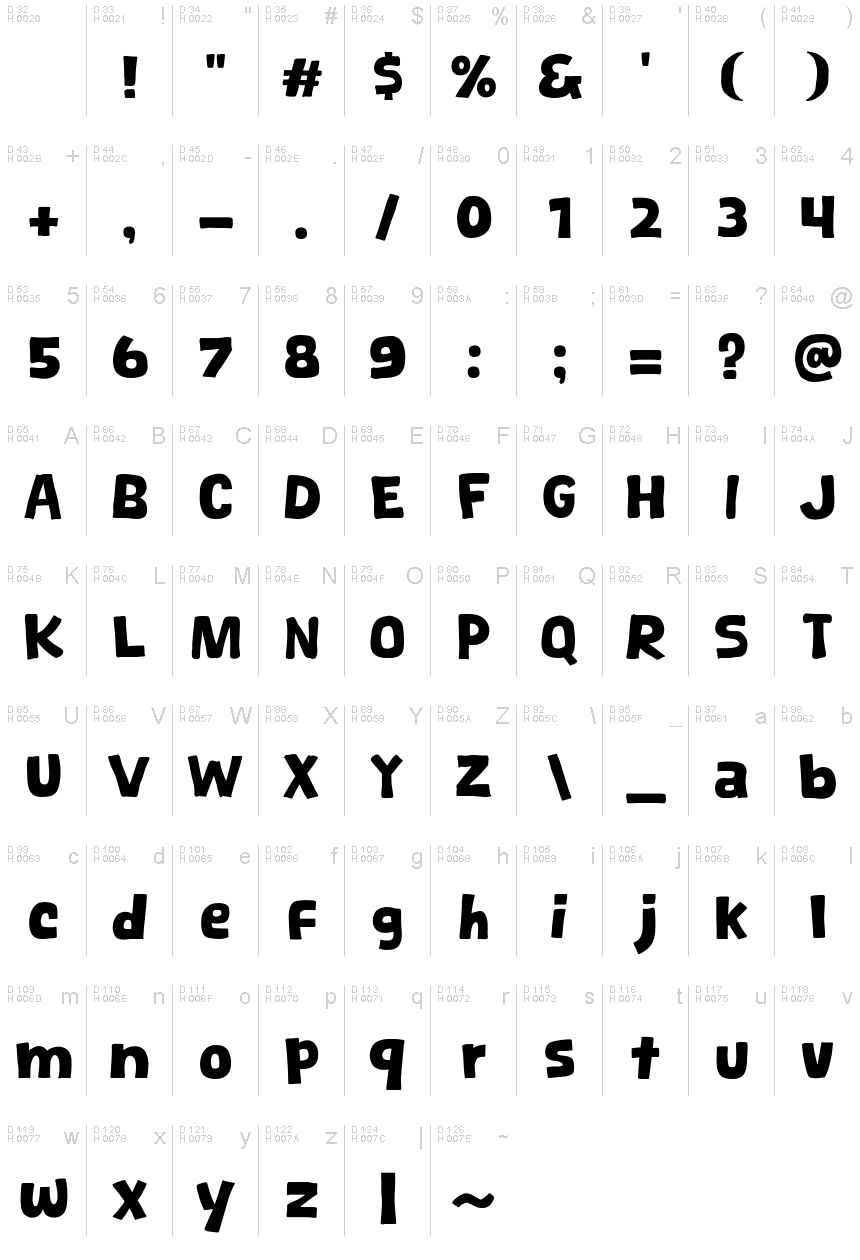
Masala Puri is a bold, cartoon-inspired display font that exudes a playful and energetic vibe. The striking, thick letterforms with their distinctive curves and angular corners create a bold, attention-grabbing aesthetic. This font's visual flair makes it well-suited for headline text, branding, and other design elements that require a strong, attention-grabbing presence.
Its versatility extends to various applications, from product packaging and advertising to book covers and event posters, where a touch of whimsy and dynamism is desired.
Masala Puri